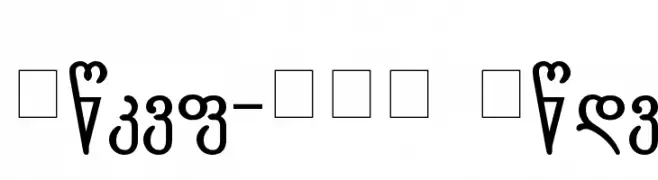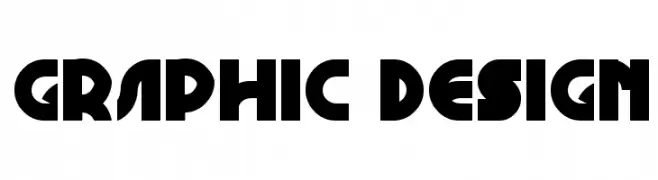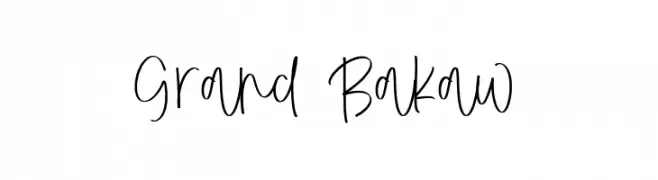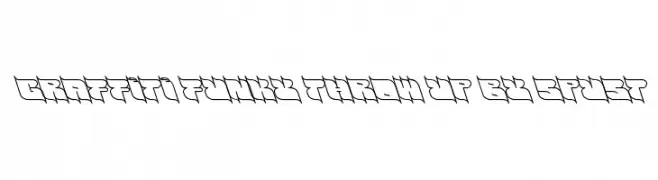
• Goostt
A playful, rounded font with smooth curves and uniform strokes.
• Goostt
A playful, rounded font with bold, smooth curves and consistent spacing.
• Gorda-ITV
• Gorda-ITV Bold
• GorriSans
• graffiti funky throw up by spust
A bold, graffiti-inspired font with dynamic, angular lines and a street art vibe.
• GRAM 01
A bold, geometric font with sharp edges and a condensed, industrial style.
• Grand Bakaw
A playful handwritten font with fluid, organic strokes and a casual vibe.
• GRAPHIC DESIGN
A bold, geometric font with a futuristic and avant-garde style.
• GRAPHIC DESIGN
A bold, geometric font with a modern, futuristic style.